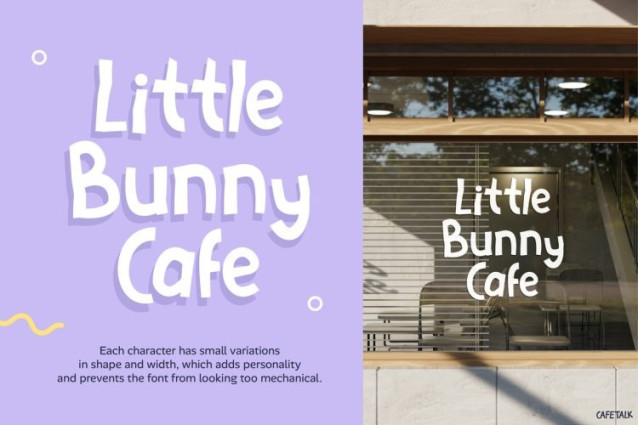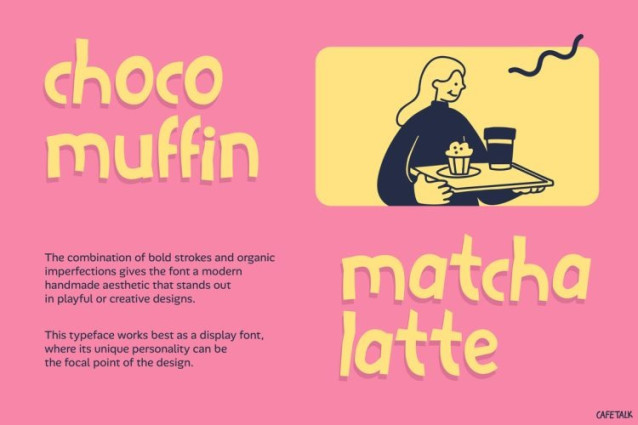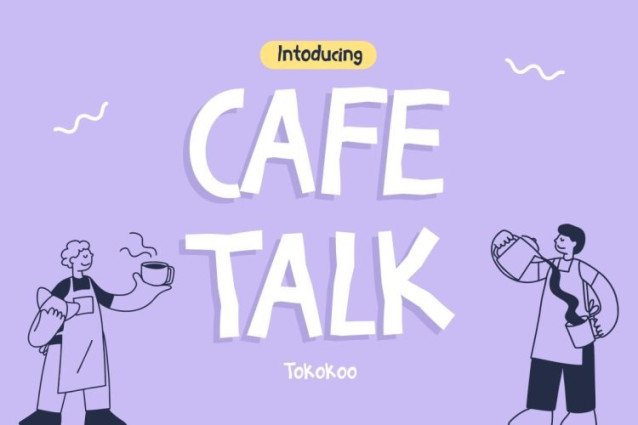
Cafetalk Font
Cafetalk Font is a delightful hand-drawn display font that brings warmth and charm to any design. Moreover, its rounded shapes and bouncy baseline create a friendly and inviting look. In addition, the slightly imperfect strokes give it a natural, human touch. As a result, it stands out from clean, rigid fonts. At the same time, it captures the cozy feeling of a café while staying clear and readable. Therefore, each letter feels lively and expressive, and the overall rhythm draws attention without overwhelming the message. Not only that, but it also adds a sense of personality that makes your designs feel more authentic and engaging.
Furthermore, this font blends playful style with strong readability. Its soft curves and smooth flow create a cheerful visual tone. For example, it works well for bold headlines and short phrases. In other words, the design feels modern yet warm and approachable. Because of this, it helps brands connect emotionally with their audience. Additionally, it performs well across both print and digital projects. Whether you are designing posters, menus, or online content, it adapts easily. Thus, your designs remain engaging and easy to read. Even better, it maintains clarity at different sizes, which makes it highly versatile.